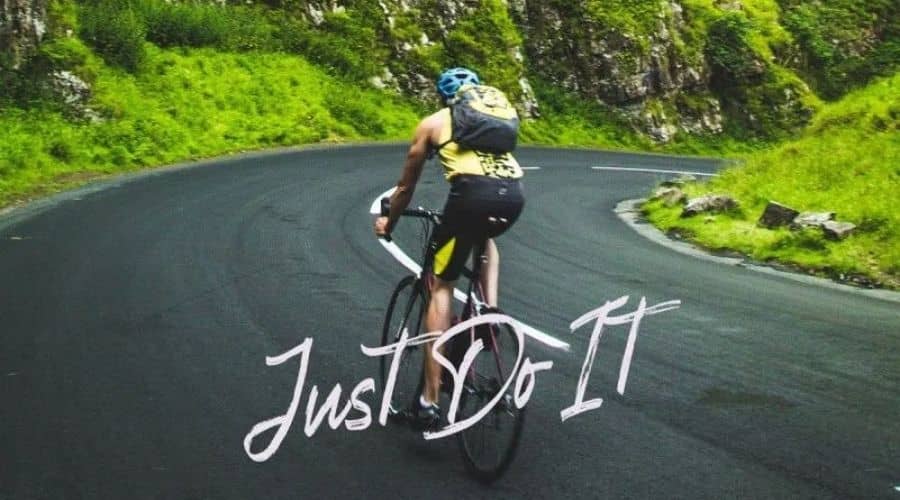
Refresh Screen Font
Refresh Screen Font is a new brush and script font. A hand Brush font is included with the Font, which works nicely with the condensed sophisticated pairing. On November 20, 2019, arendxstd created this Font. The calligraphy in the typeface is current and unusual, and the writing style is very natural. Refresh Screen Font is a Personal Use Only Font. Starting with uppercase, lowercase, Numeric, and certain Special character and alternatives, fonts are available. Refresh Screen Font is available in OTF and TTF formats for Windows, Mac, and Android. Refresh Screen is the ideal typeface for all of your creative projects. The firm arendxstd employs the author. This Font belongs to the Regular subfamily. This typeface belongs to the Refresh Screen family. Version 1.000 arendxstd is the Font’s current version. The typeface adds a fresh hand-painted look with realistic texture to your new brand, wedding invitation, quote, and more. The Refresh Screen was designed to offer your next project a natural yet stylish look! Combining the two types is ideal for wedding invitations or fashion branding. Windows, Apple/Mac, Linux, Cricut, Silhouette, and other cutting machines are all compatible with the lovely Script and brush font. Converting Refresh Screen Font to Webfont is simple.
Refresh Screen Font is great for logos, branding, invitations, stationery, wedding designs, logos, business cards, covers, t-shirts, social media posts, and more. It will also be utilized to generate stunning images and text in a variety of colors and styles. This font set is ideal for wedding invites, quotes, and any other project that calls for a natural and fresh aesthetic. The Font specifically looks amazing in any type of quote for its beautiful duo combination.
| Style | Script Font, Brush Font. |